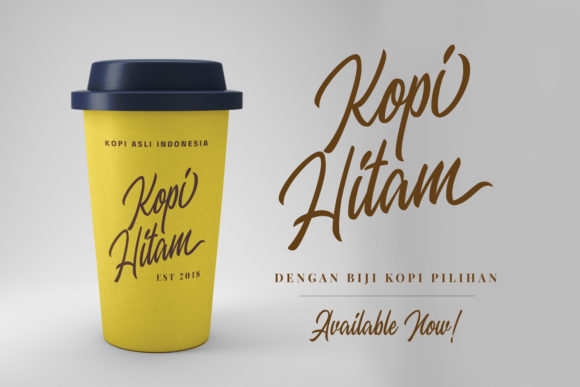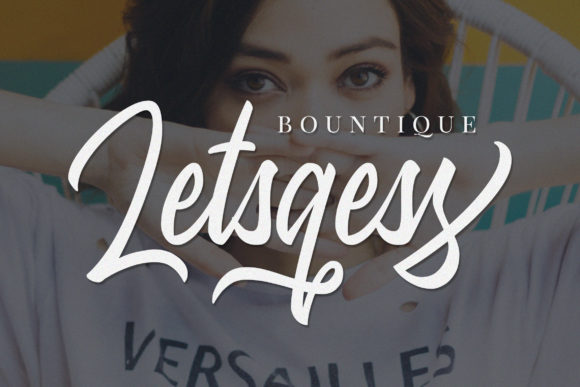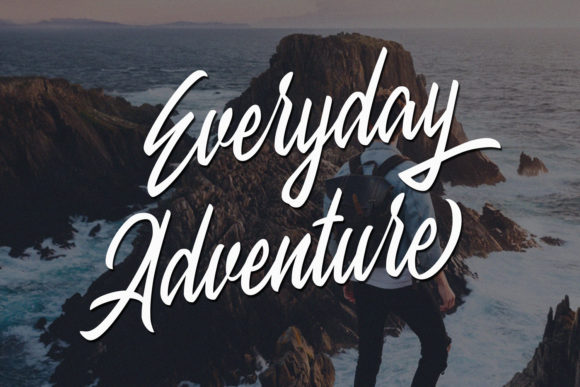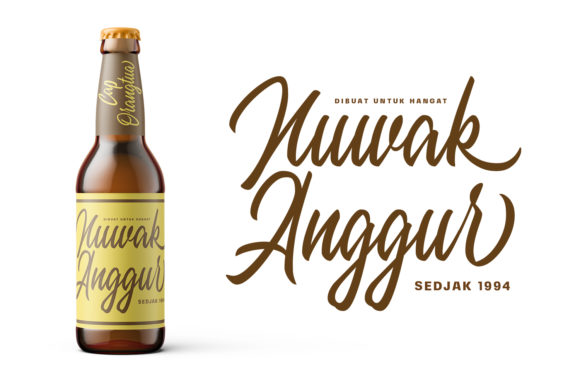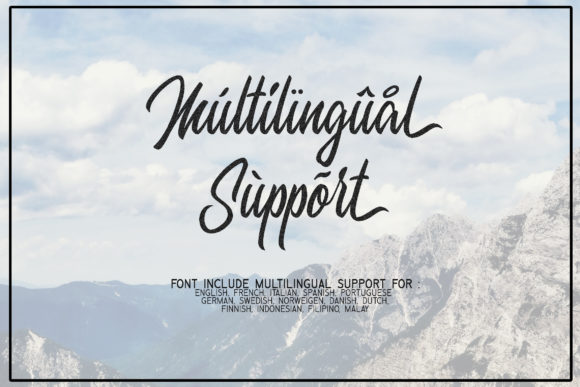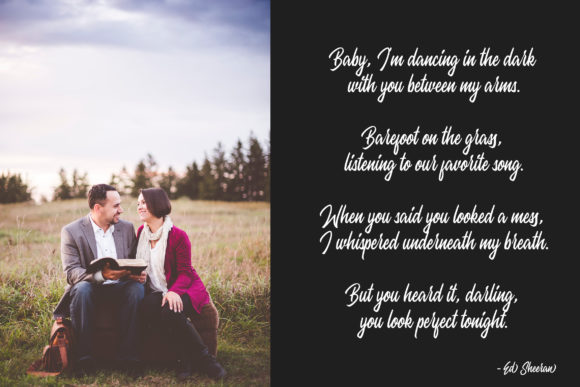
Introduction to Mettda Font Font
Fonts play a crucial role in design, and the Mettda Font font is a typeface that brings both character and versatility to any project. Whether you’re working on a branding project, a website, or a print design, the Mettda Font font offers a unique style that can elevate your work.
Mettda is a fun and bold handwritten font with a unique twist.
Use it to add a contemporary charm to any design project .
Key Features of Mettda Font Font
Why Choose Mettda Font Font?
The Mettda Font font is more than just a typeface – it’s a design tool that helps you communicate your message with style and clarity. Its unique character set and versatile design make it suitable for a wide range of applications, from elegant invitations to bold headlines.
With its carefully crafted letterforms and balanced proportions, the Mettda Font font ensures readability and visual appeal across all mediums.
What makes Mettda Font font special?
The Mettda Font font stands out with its unique design, exceptional readability, and versatility across various design applications.